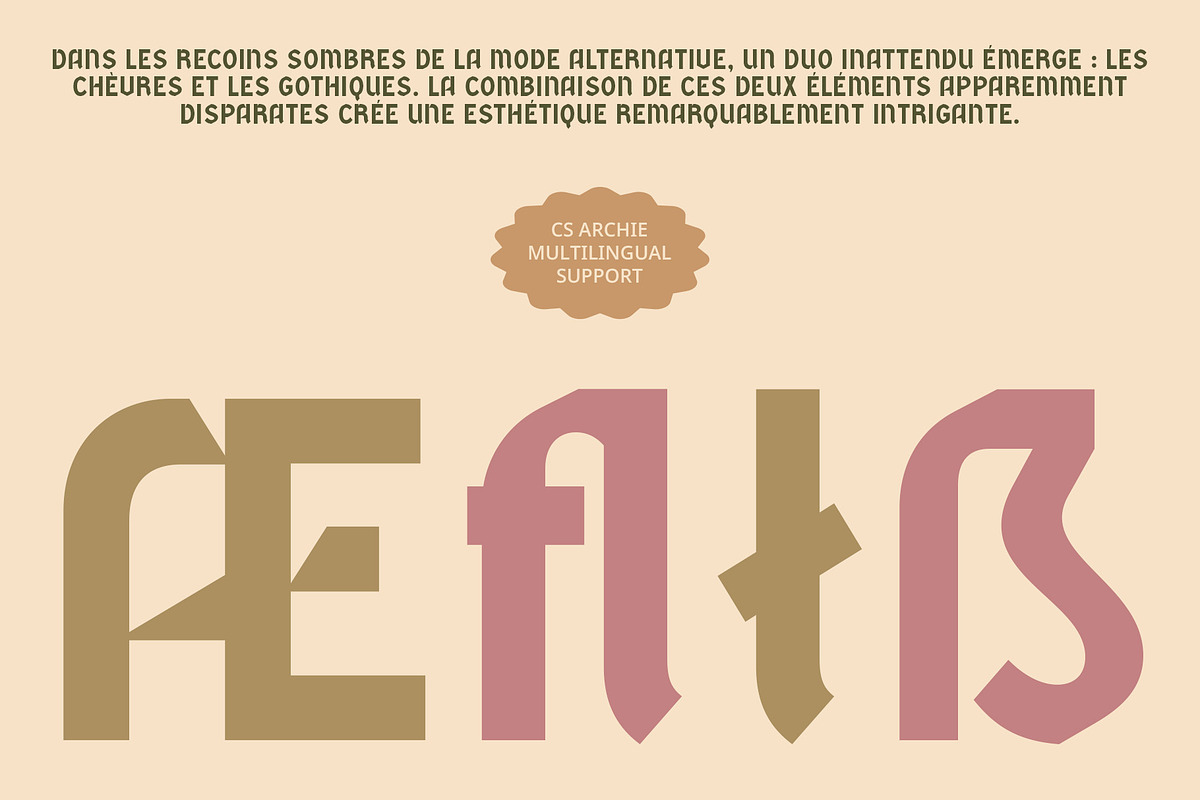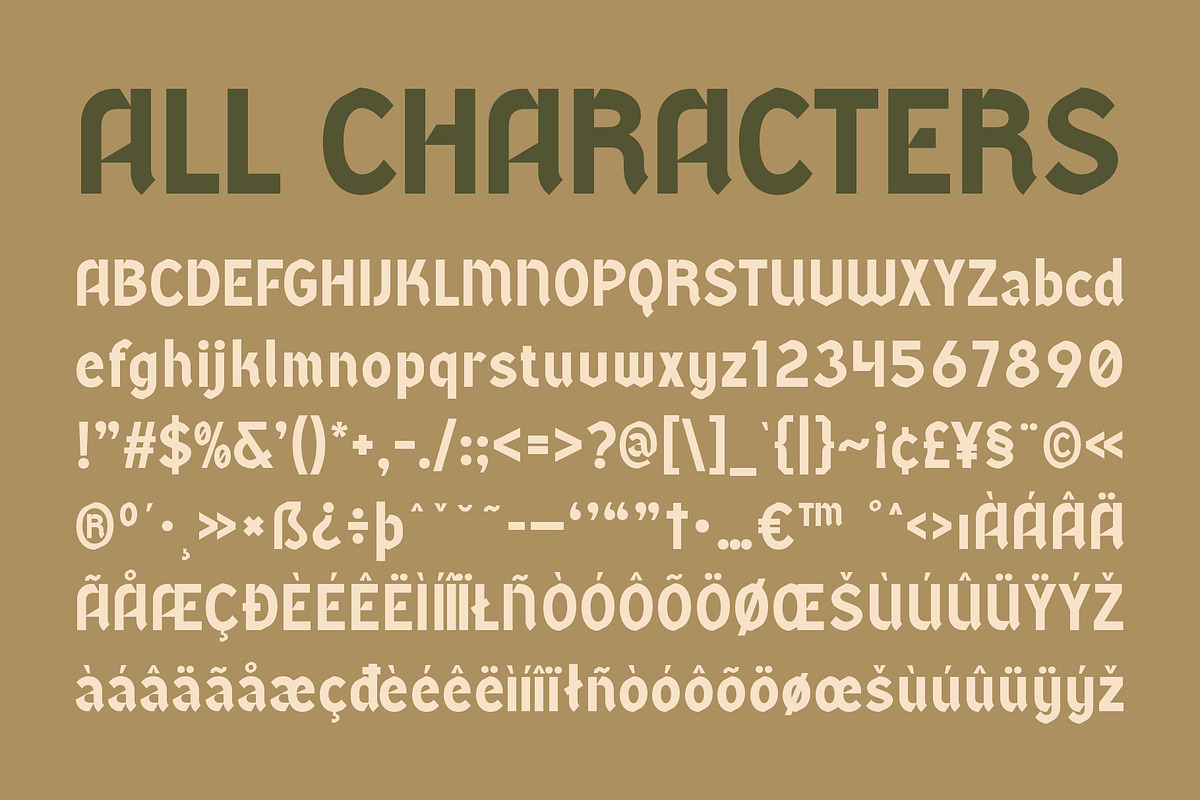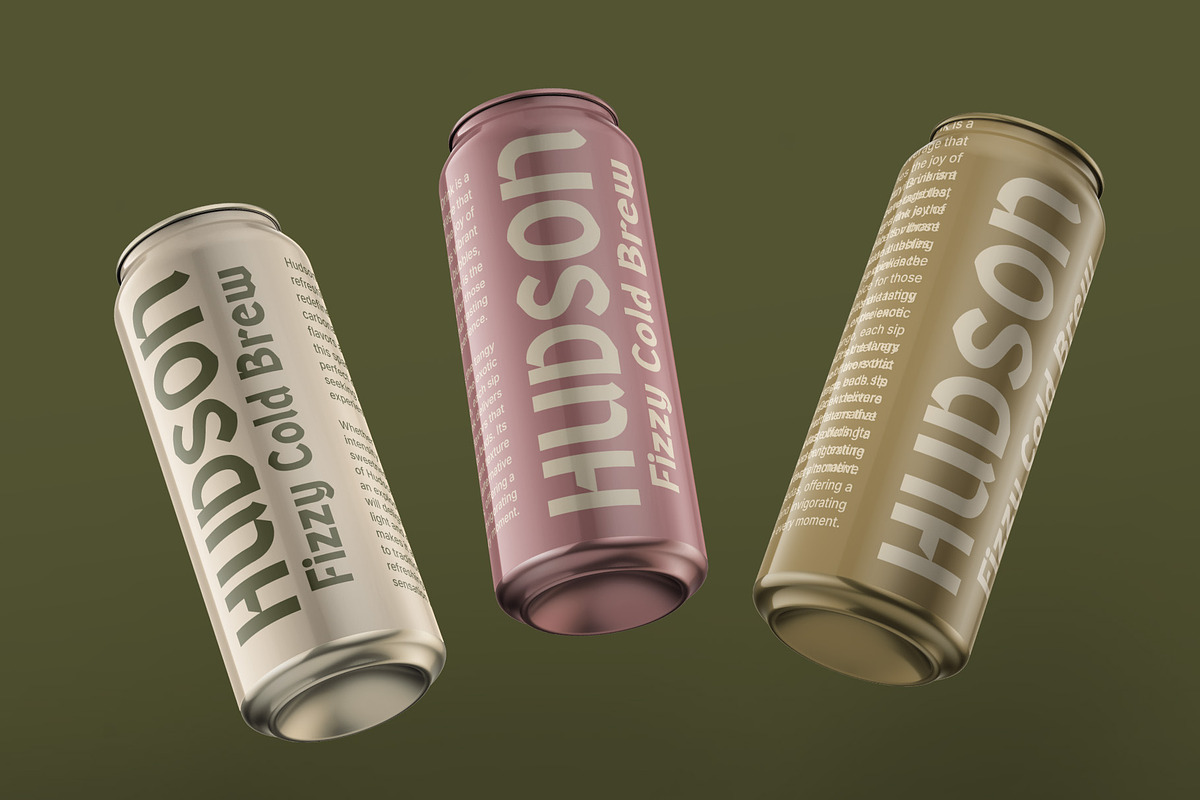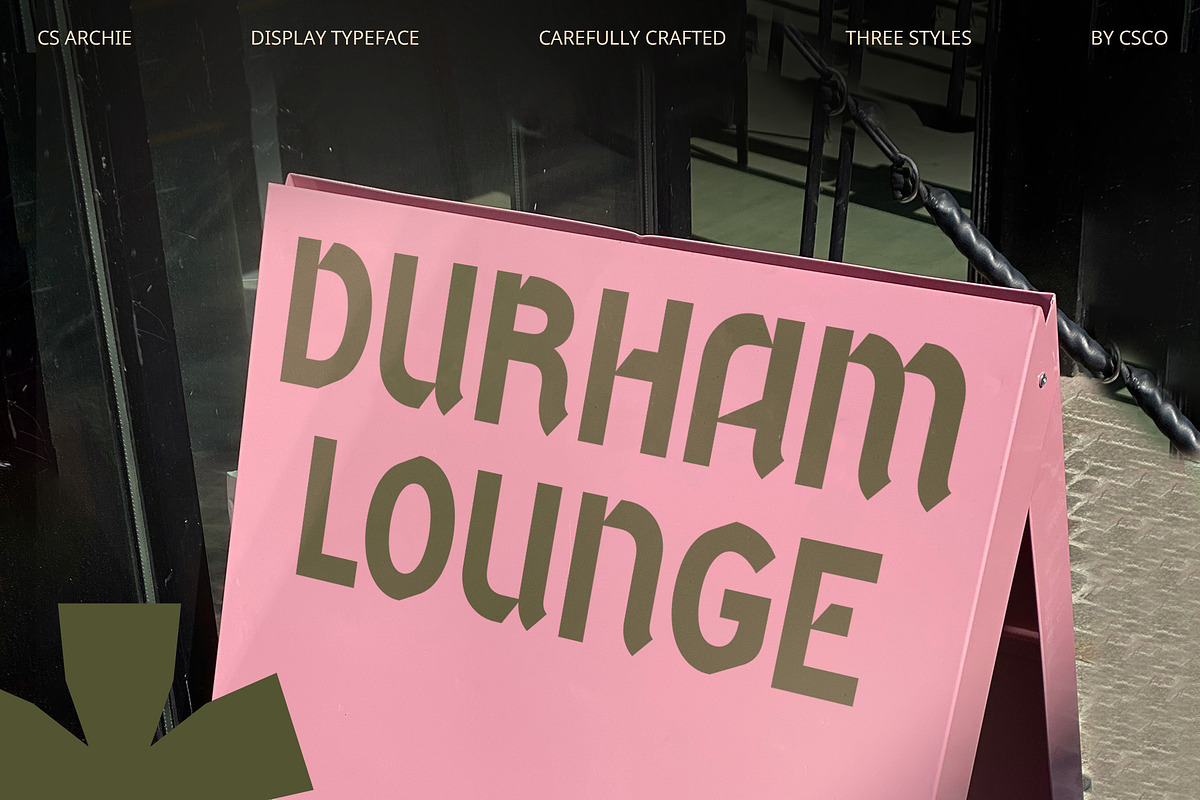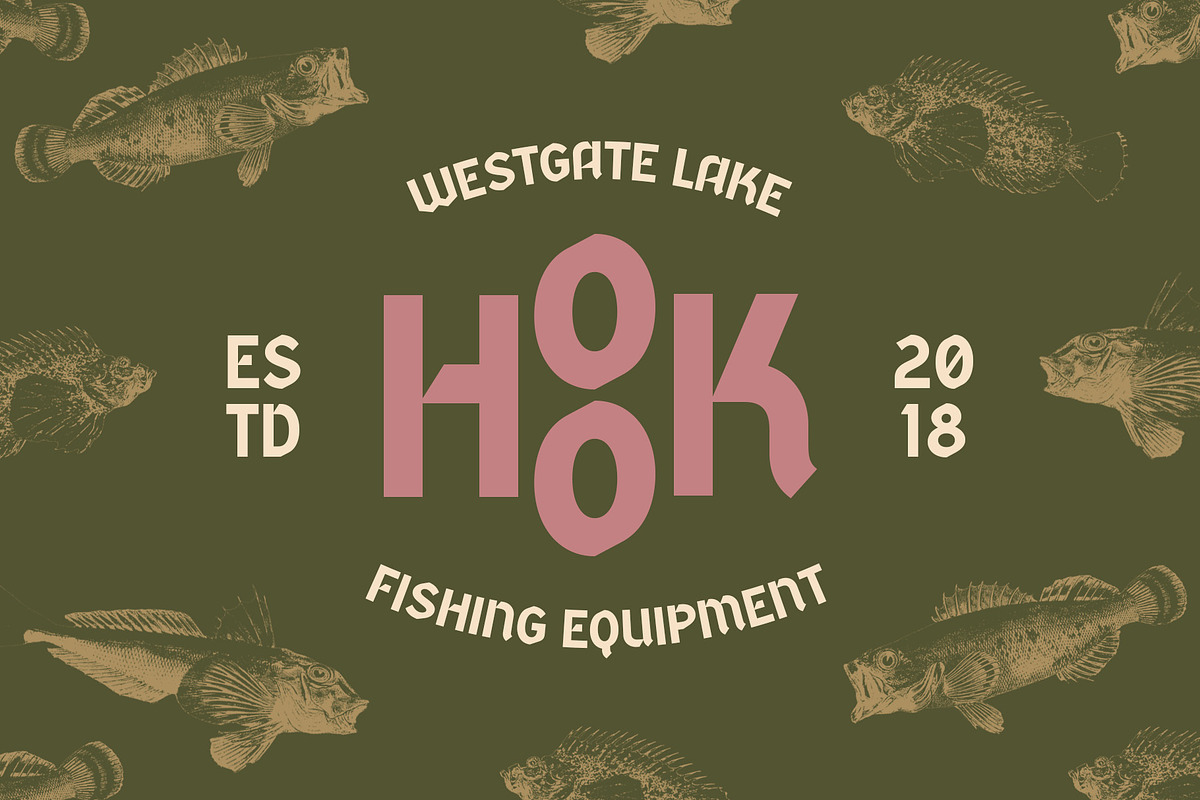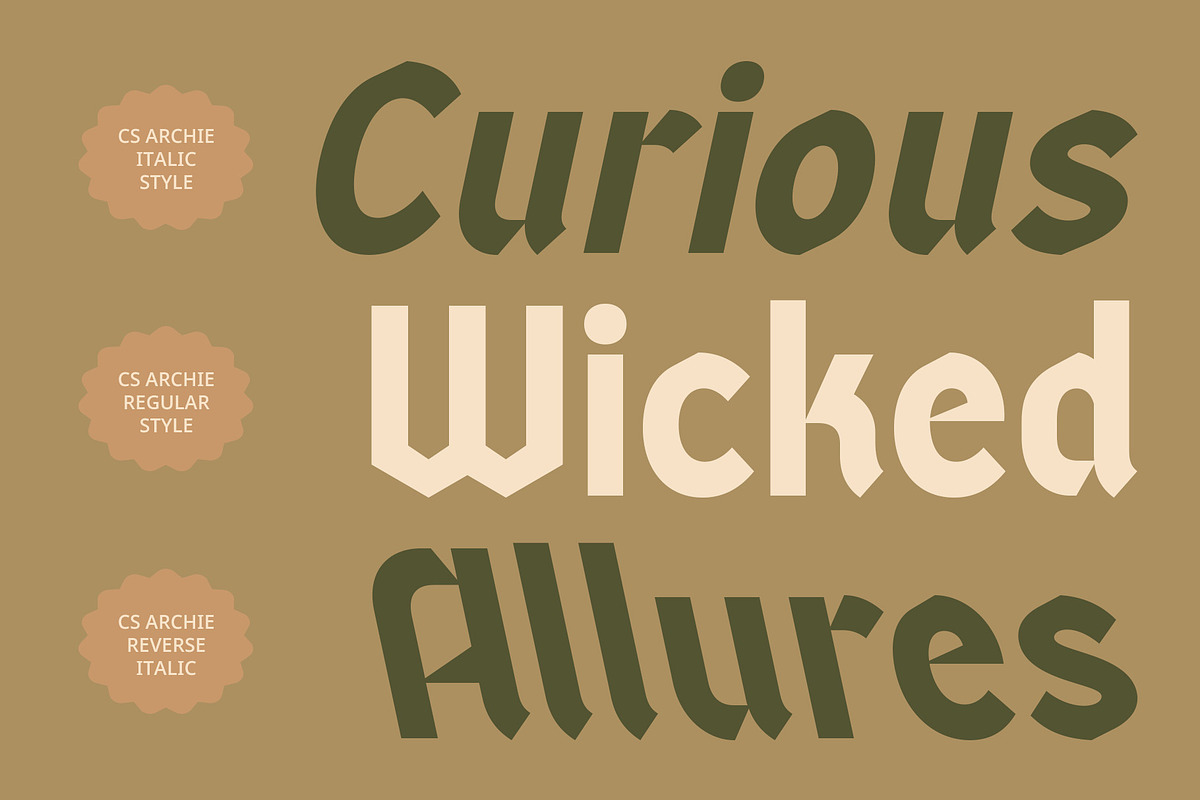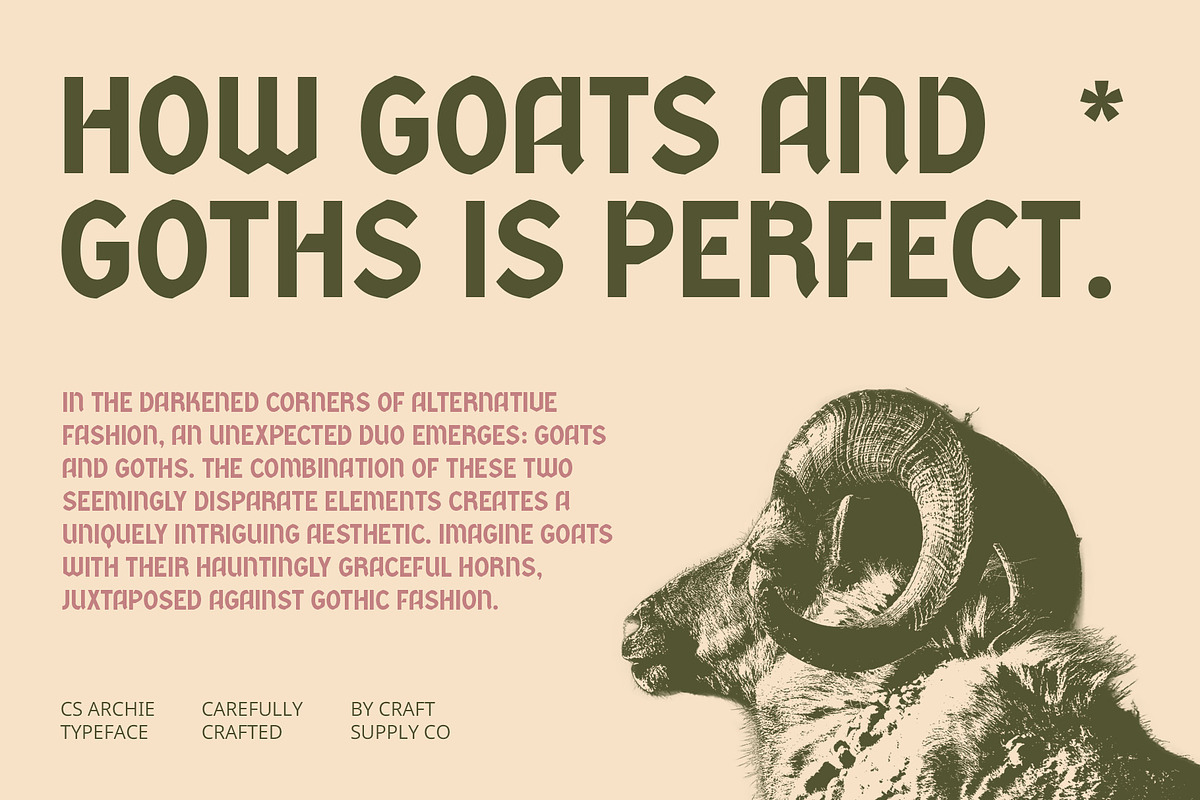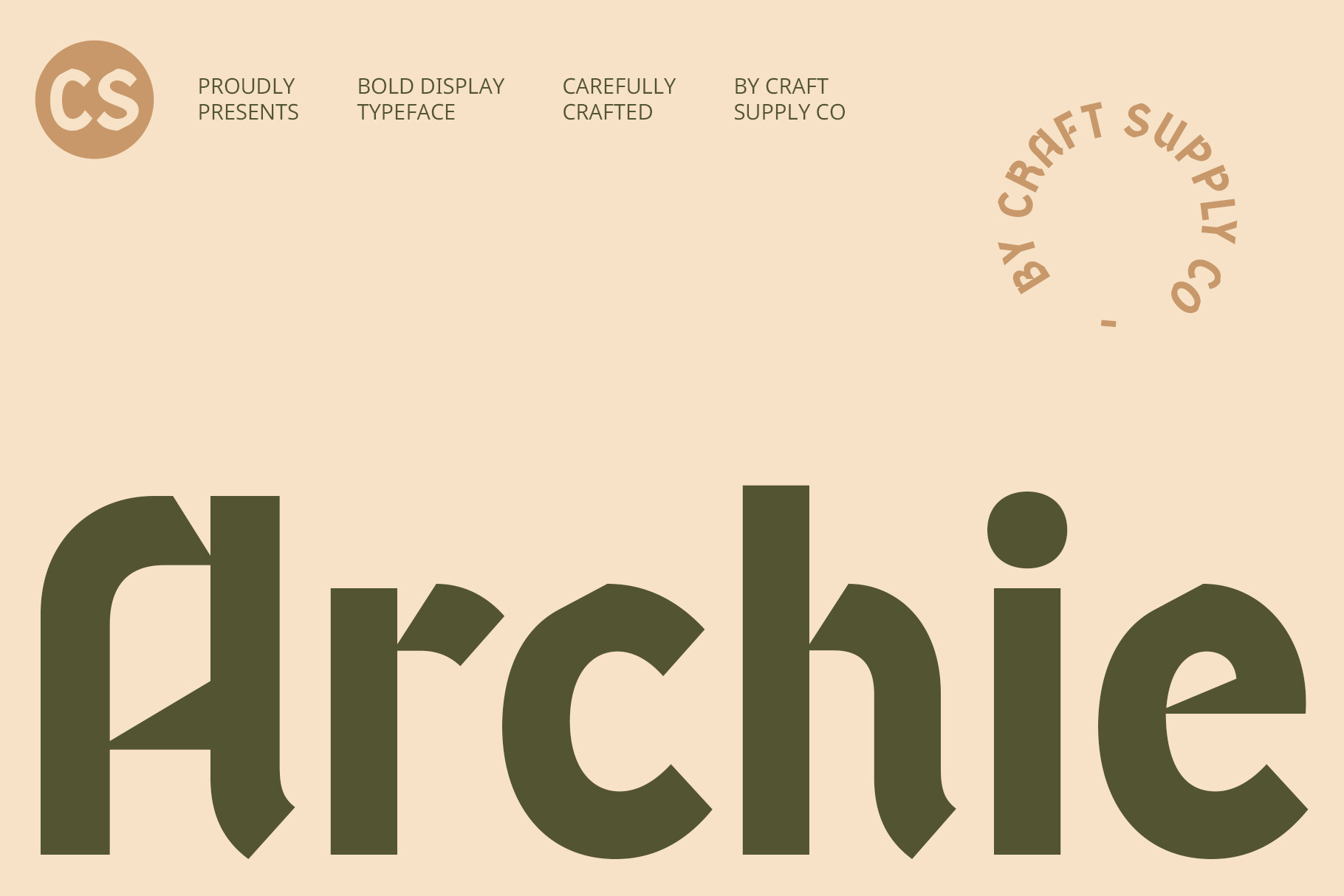
CS Archie – Blackletter Font
CS Archie – Blackletter Font: Classic Elegance Meets Modern Boldness
Classic Elegance with Contemporary Strength CS Archie is a modern Blackletter display sans serif font that blends classic elegance with bold, contemporary visual strength. Featuring prominent, bold characters, this font creates a sophisticated and dominant presence that commands attention.
Striking and Sophisticated Impression The bold Blackletter design of CS Archie ensures a strong and authoritative impression, making it ideal for high-impact branding, formal invitations, and promotional materials. Its refined letterforms exude prestige and elegance, elevating the visual appeal of any project.
Perfect for High-Profile Projects CS Archie is well-suited for projects that require a striking and elegant visual statement. Whether used in luxury branding, official documents, or high-profile events, this font delivers a perfect balance of historical grandeur and modern sophistication.
Authority and Prestige in Every Letter The font’s modern Blackletter style conveys a sense of authority and prestige, making it an excellent choice for designs that need to make a memorable and impressive impact. CS Archie enhances your project with a bold, sophisticated flair that stands out.
- CS Archie Regular
- CS Archie Italic
- CS Archie Reverse Italic